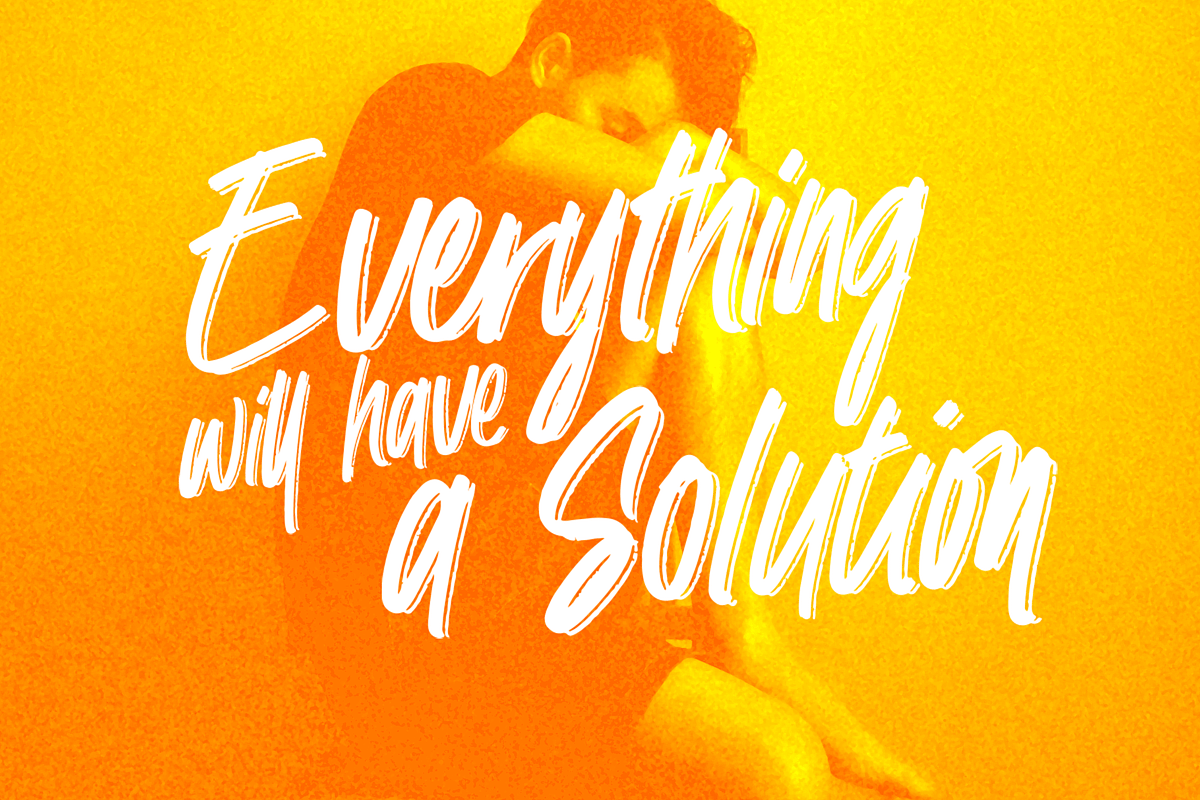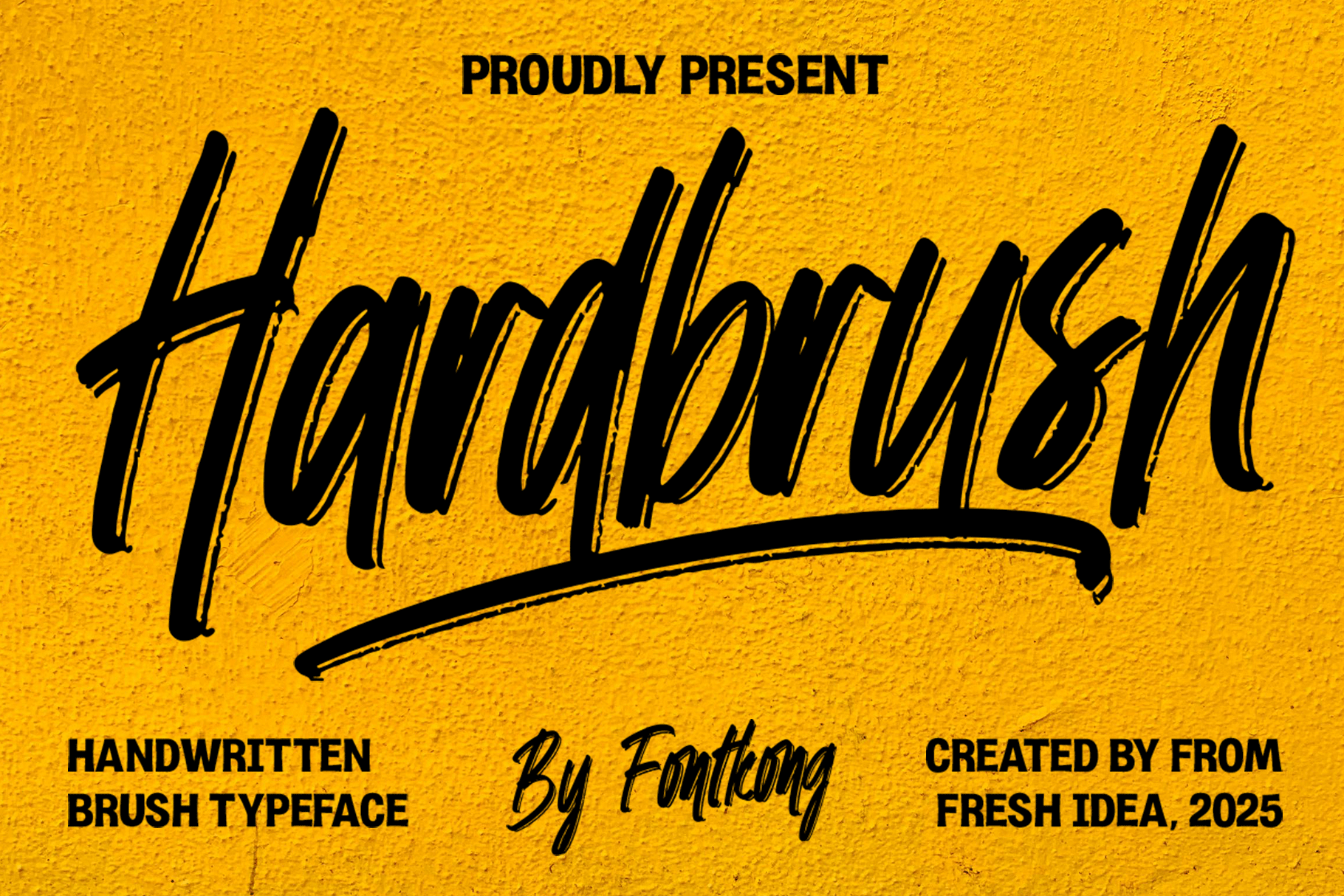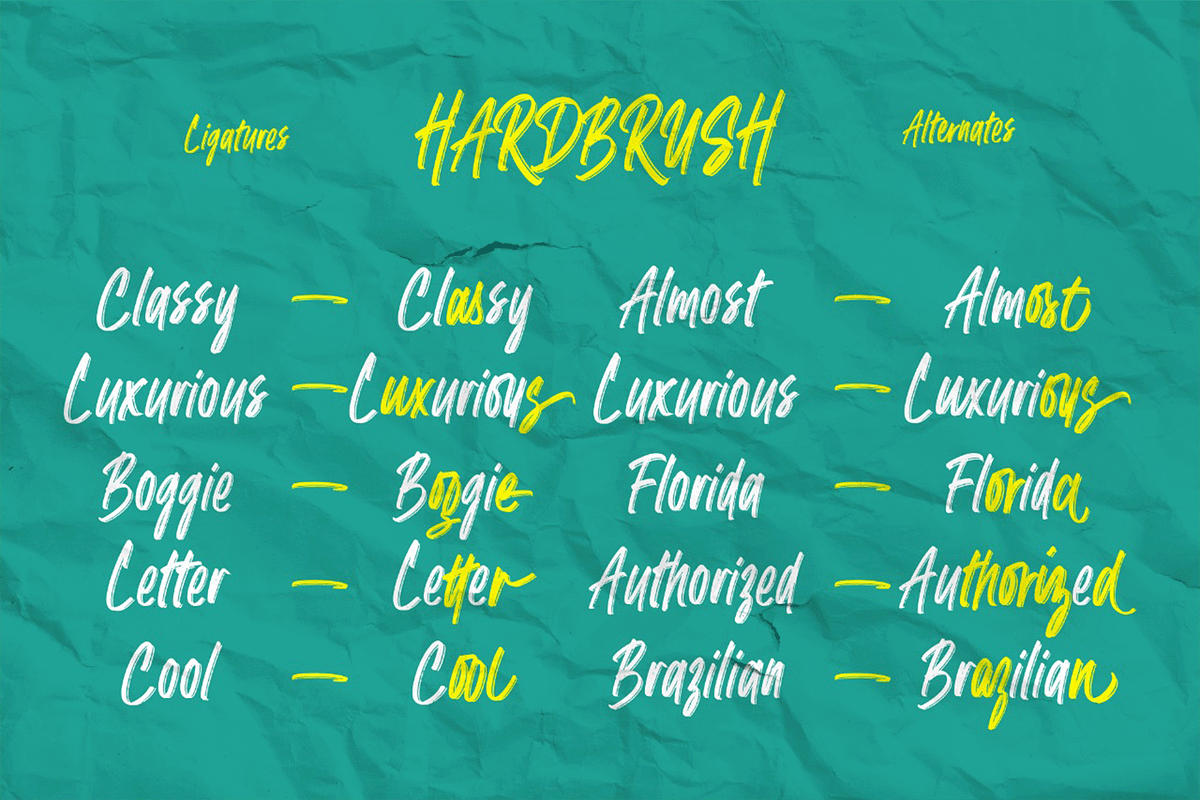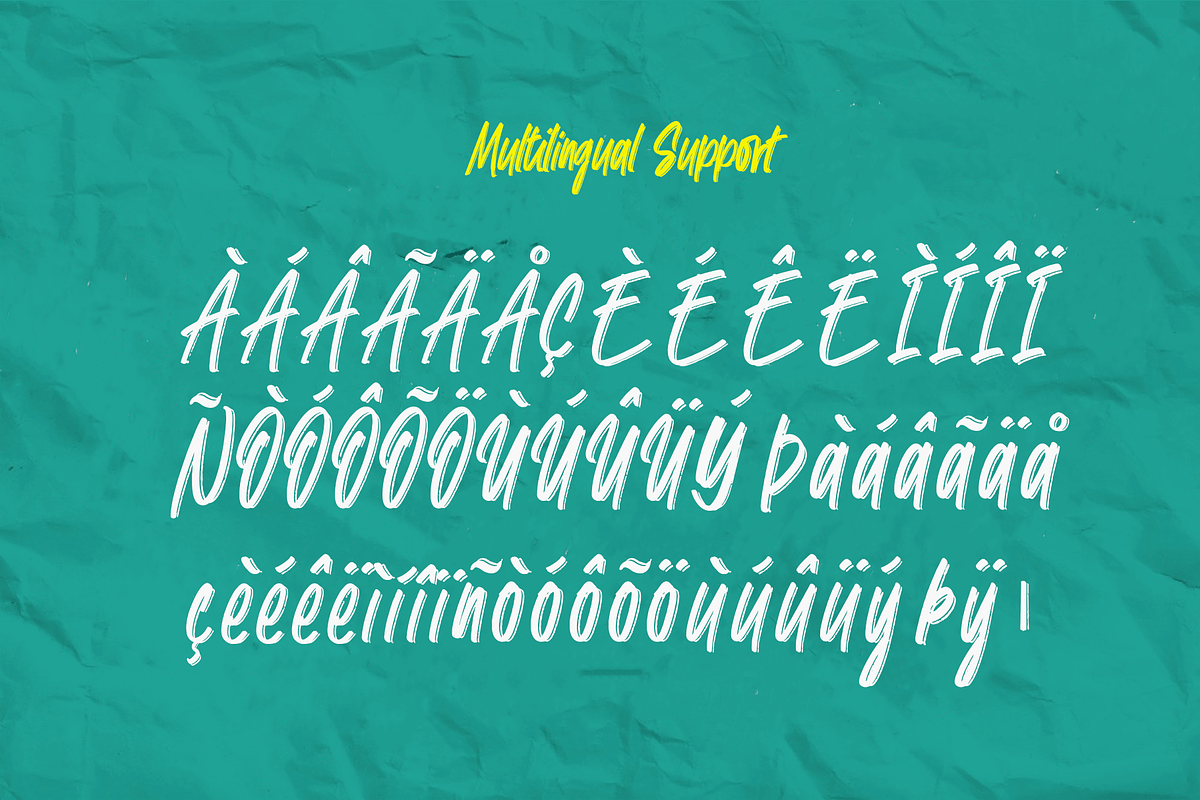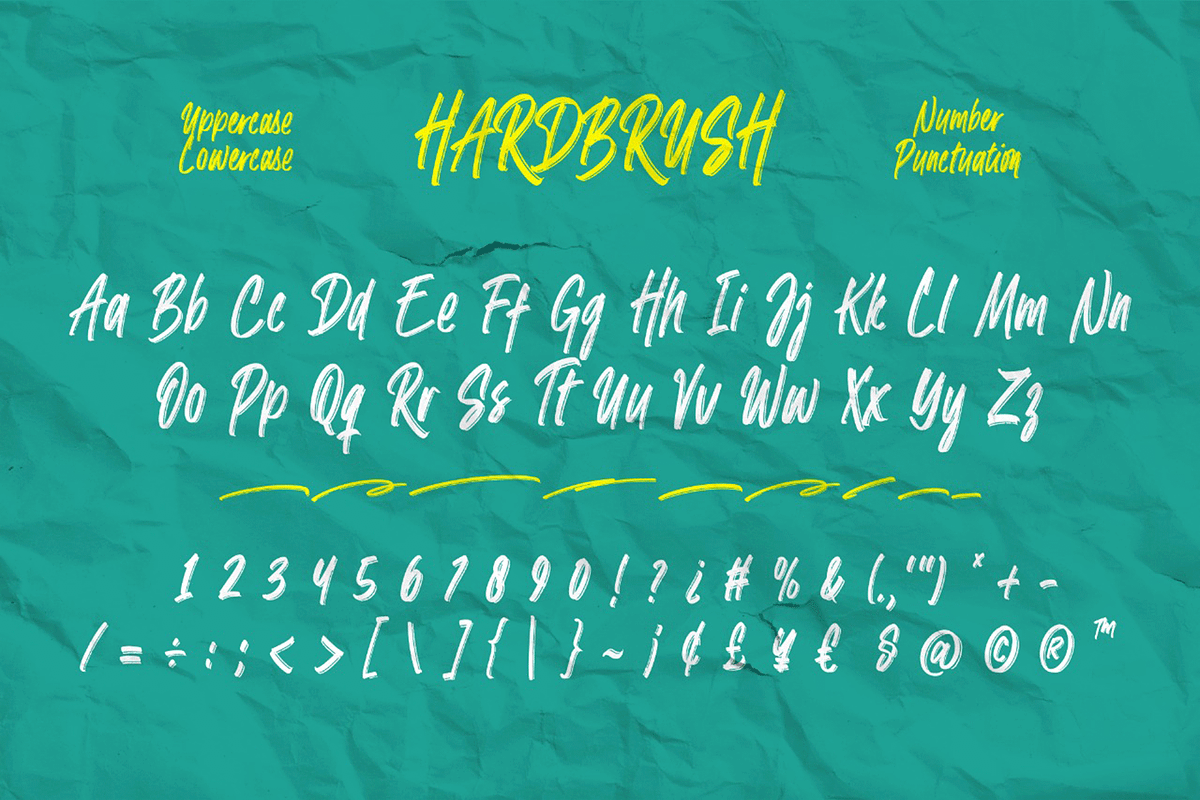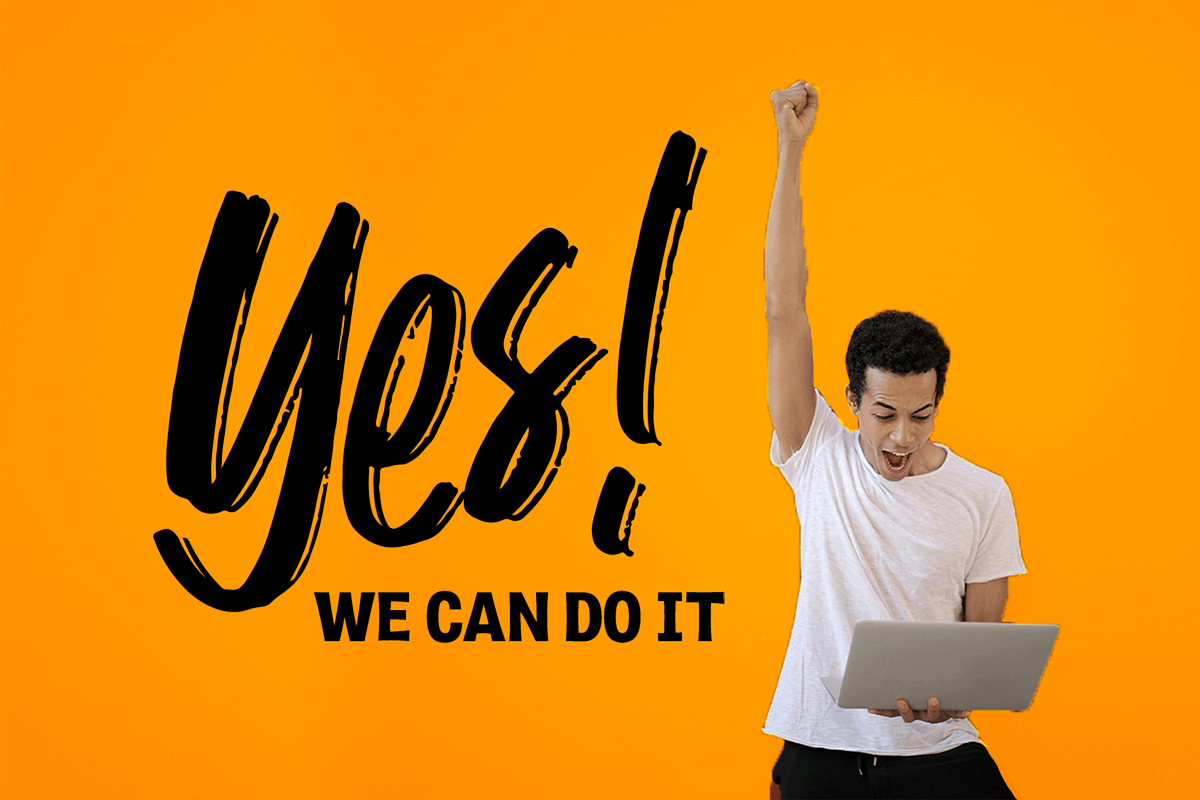
Hardbrush–Handwritten Brush Typeface
Hardbrush – Handwritten Brush Typeface
Introducing Hardbrush, a dynamic handwritten brush typeface that packs boldness and authenticity into every stroke. Inspired by street art, hand-painted signs, and raw expression, Hardbrush delivers high-impact typography with a gritty, handcrafted feel.
With its thick, textured brush strokes and natural flow, this font is perfect for posters, apparel designs, album covers, branding, and social media graphics that demand attention. Hardbrush brings attitude and energy to your project, making it ideal for anything that needs a bold, rebellious, or artistic edge.
Hardbrush includes uppercase and lowercase letters, numbers, punctuation, and multilingual support—giving you everything you need for expressive, versatile designs.